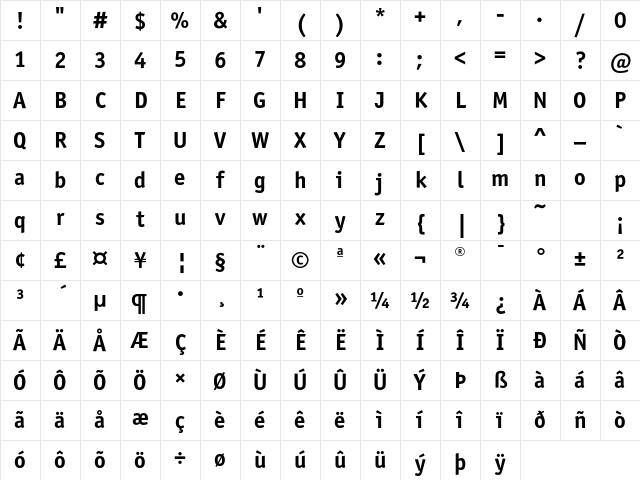
OfficinaSansEF Bold Free Font
OfficinaSansEF Bold
Design Context for OfficinaSansEF
OfficinaSansEF is a composed and adaptable typeface that performs quietly and consistently across a wide range of design contexts. Its bold stroke weight gives it real presence on the page.